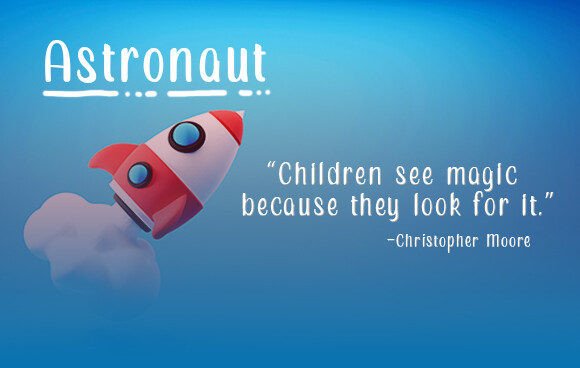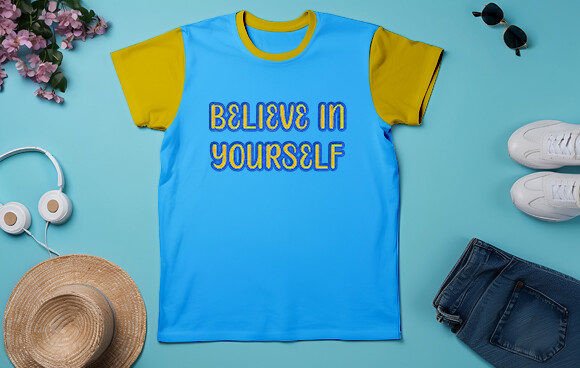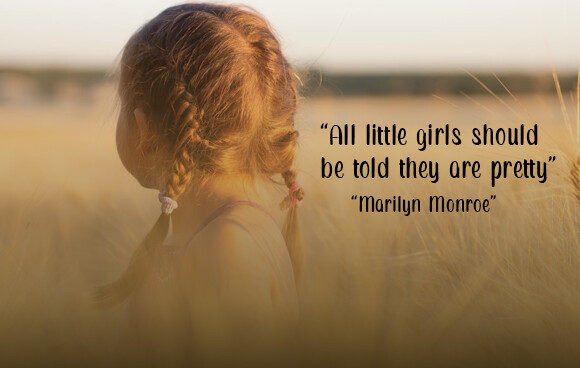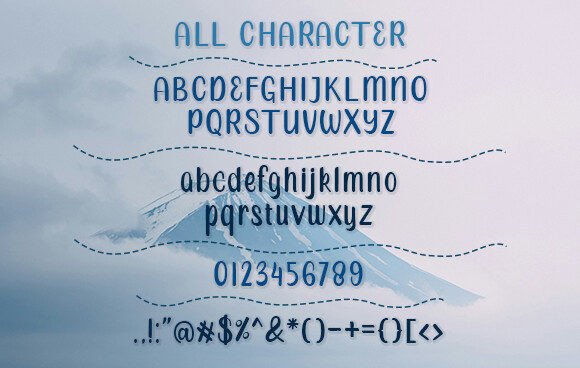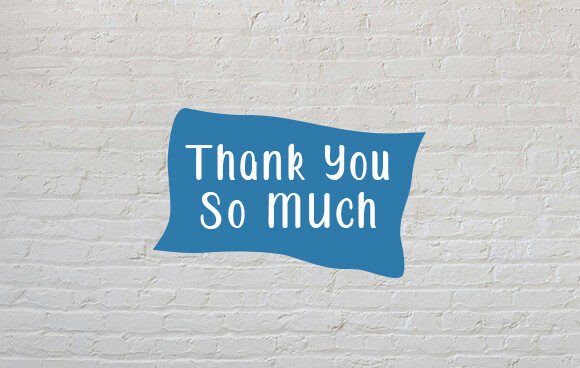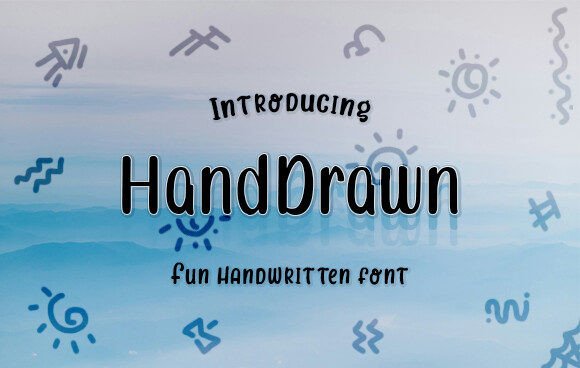
The Charm of Hand Drawn Fonts: Adding a Personal Touch to Your Designs
When it comes to creating visually appealing designs, the choice of font plays a crucial role. Among the numerous font styles available, hand drawn fonts have gained immense popularity for their unique, natural, and friendly appearance. A hand drawn font is a typeface that mimics the look of handwritten text, created by drawing each letter and character by hand. This style of font has become a favorite among designers and crafters, and for good reason.
The Unique Characteristics of Hand Drawn Fonts
Hand drawn fonts are known for their charming, authentic, and relaxed characteristics. Unlike traditional fonts, which can appear stiff and formal, hand drawn fonts have a natural and organic feel to them. Each letter and character is crafted with care, giving the text a personal touch that resonates with the audience. The imperfections and variations in the font add to its charm, making it perfect for designs that require a human touch.
Versatility of Hand Drawn Fonts
One of the significant advantages of hand drawn fonts is their versatility. They can be used in a wide range of designs, from logos and branding materials to invitations, cards, and product packaging. Whether you’re creating a logo for a new business, designing an invitation for a special event, or crafting a label for a product, a hand drawn font can add a touch of personality and whimsy to your design.
Hand drawn fonts are perfect for creative projects that require a personal touch. Some of the projects that can benefit from a hand drawn font include:
• Logos and branding materials: A hand drawn font can add a unique and memorable touch to your logo and branding materials.
• Invitations and cards: Hand drawn fonts are perfect for creating invitations, cards, and other stationery items that require a personal touch.
• Product packaging: A hand drawn font can add a touch of personality to your product packaging, making it stand out on store shelves.
• Headers and logotypes: Hand drawn fonts can be used to create beautiful headers and logotypes that add a touch of elegance to your design.
• Letterheads and posters: A hand drawn font can add a touch of sophistication to your letterheads and posters.
• Photography watermarks: Hand drawn fonts can be used to create beautiful watermarks for your photographs.
• Advertisements and product designs: A hand drawn font can add a touch of personality to your advertisements and product designs.
• Stationery and wedding designs: Hand drawn fonts are perfect for creating beautiful stationery items and wedding designs.
• Labels and product packaging: A hand drawn font can add a touch of personality to your labels and product packaging.
Why Choose a Hand Drawn Font?
There are several reasons why designers and crafters choose hand drawn fonts for their projects. Some of the benefits of using a hand drawn font include:
• Unique and distinctive: Hand drawn fonts are unique and distinctive, making them perfect for designs that require a personal touch.
• Natural and organic: Hand drawn fonts have a natural and organic feel to them, which can add a touch of warmth and personality to your design.
• Versatile: Hand drawn fonts are versatile and can be used in a wide range of designs.
• Easy to read: Despite their unique and handcrafted appearance, hand drawn fonts are often easy to read and understand.
Font Name Hand Drawn Font
Author Typecase
In conclusion, hand drawn fonts are a popular choice among designers and crafters for their unique, natural, and friendly appearance. Their versatility and charm make them perfect for a wide range of designs, from logos and branding materials to invitations, cards, and product packaging. Whether you’re creating a logo for a new business or designing an invitation for a special event, a hand drawn font can add a touch of personality and whimsy to your design. So, next time you’re looking for a font that adds a personal touch to your design, consider using a hand drawn font.